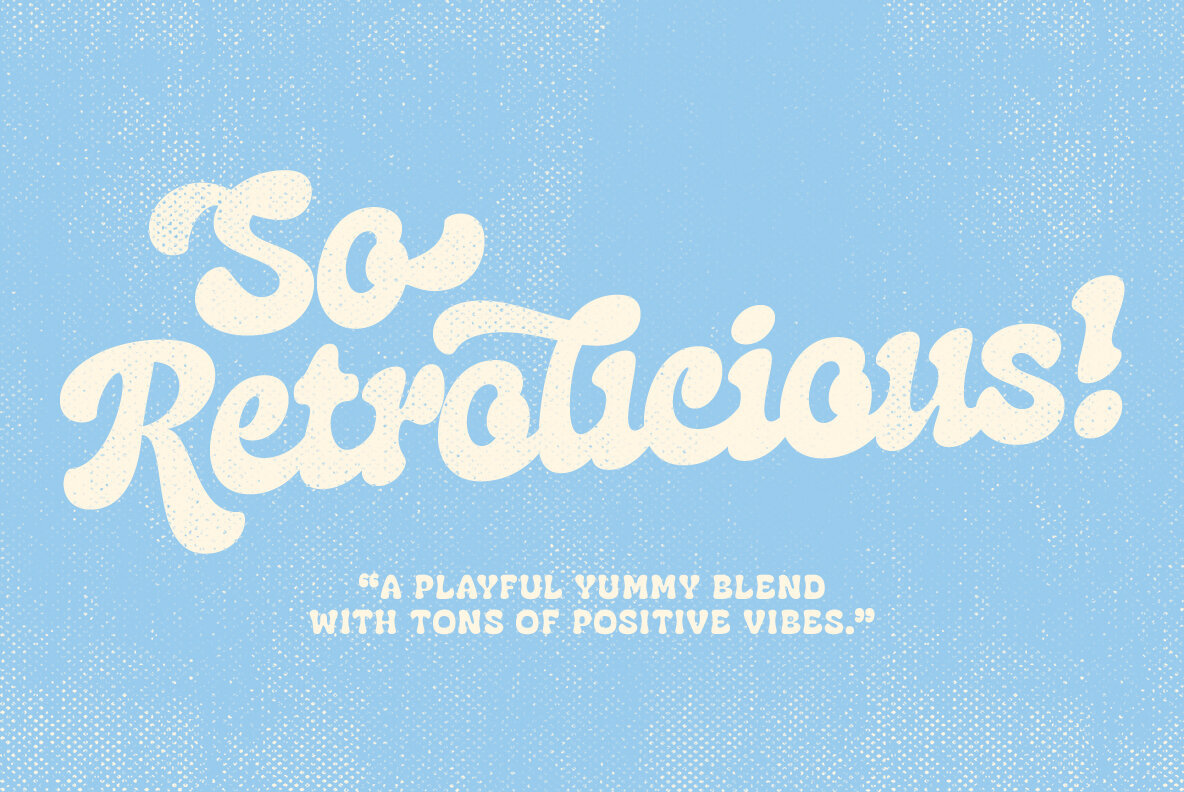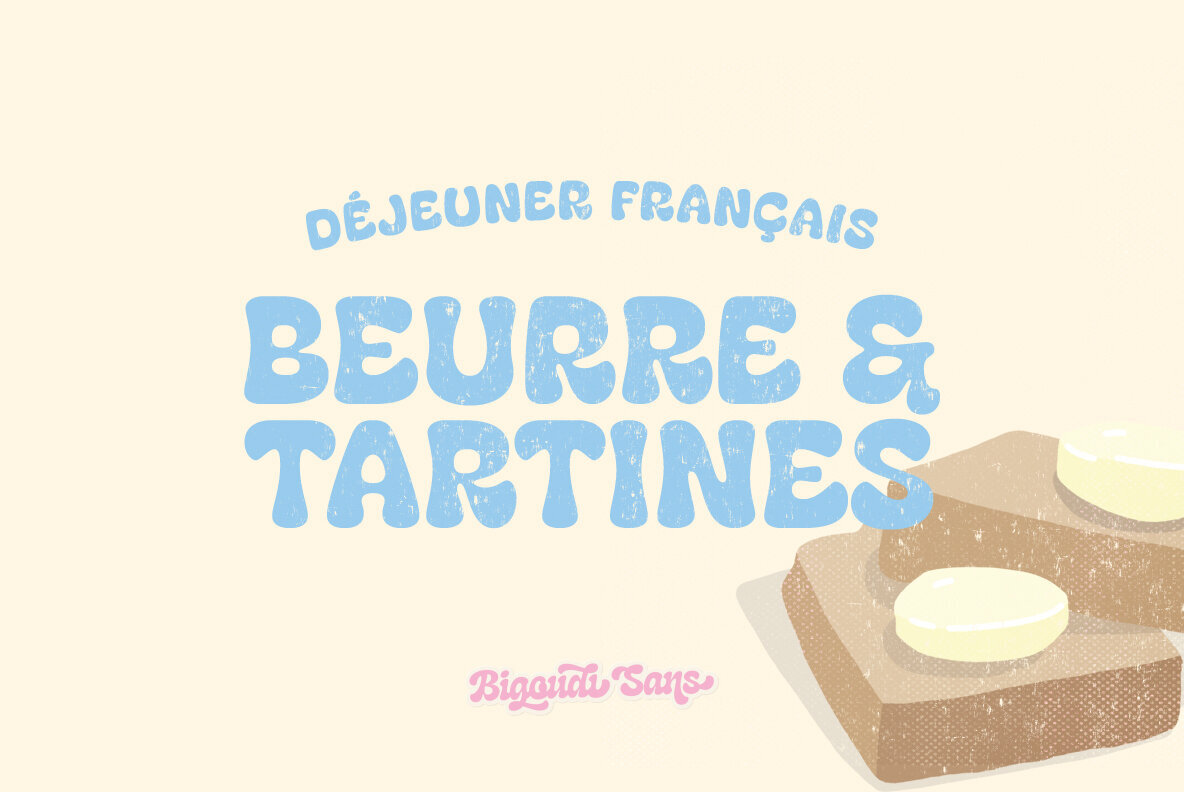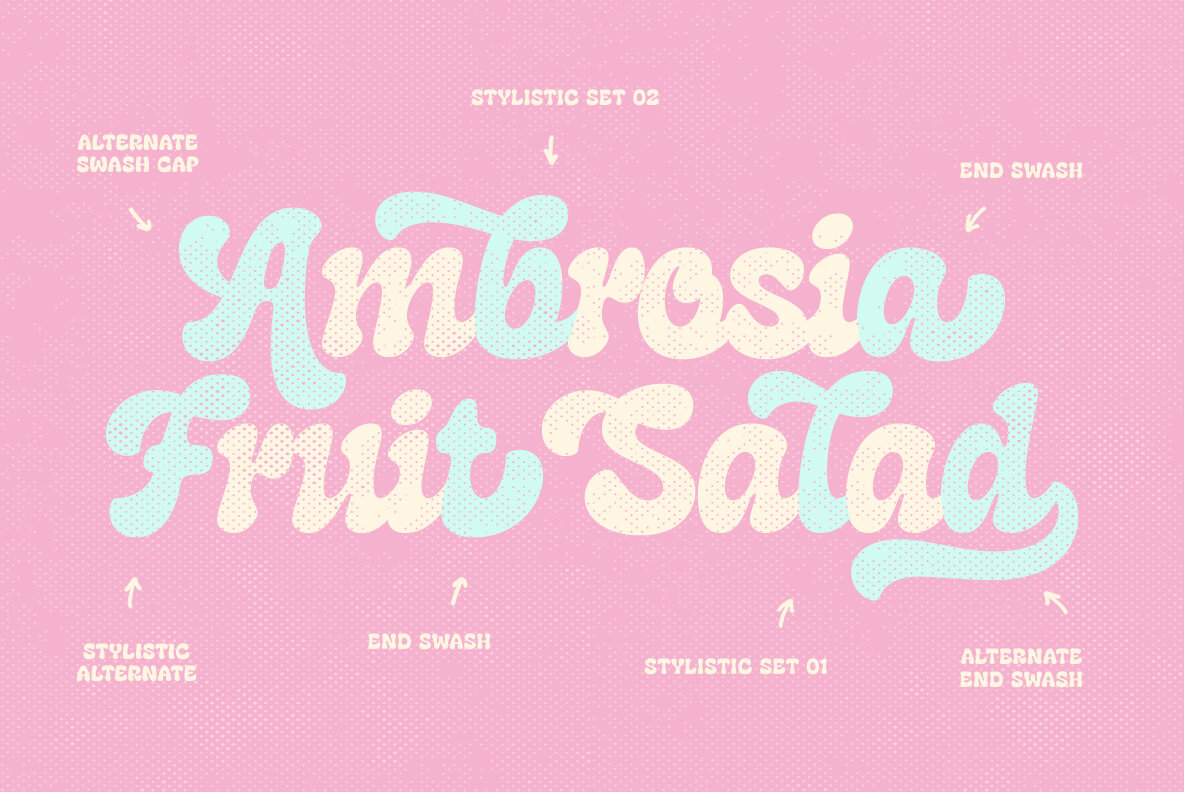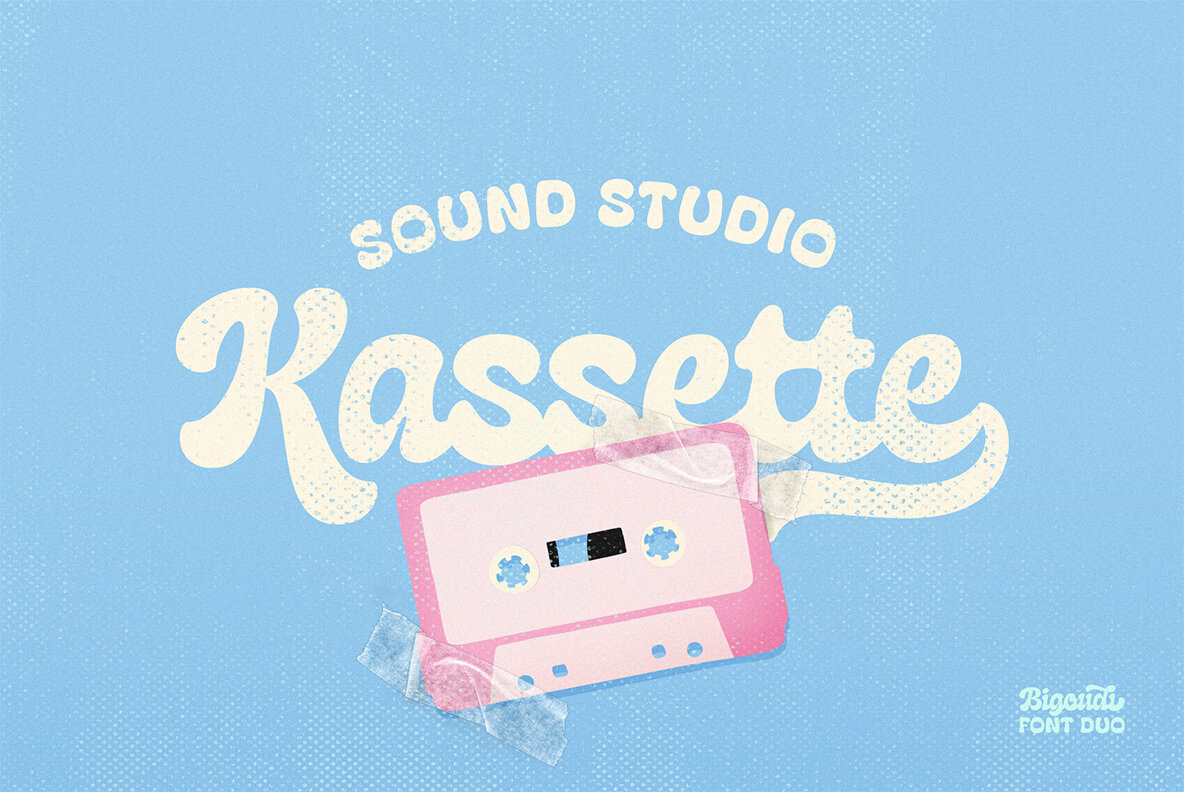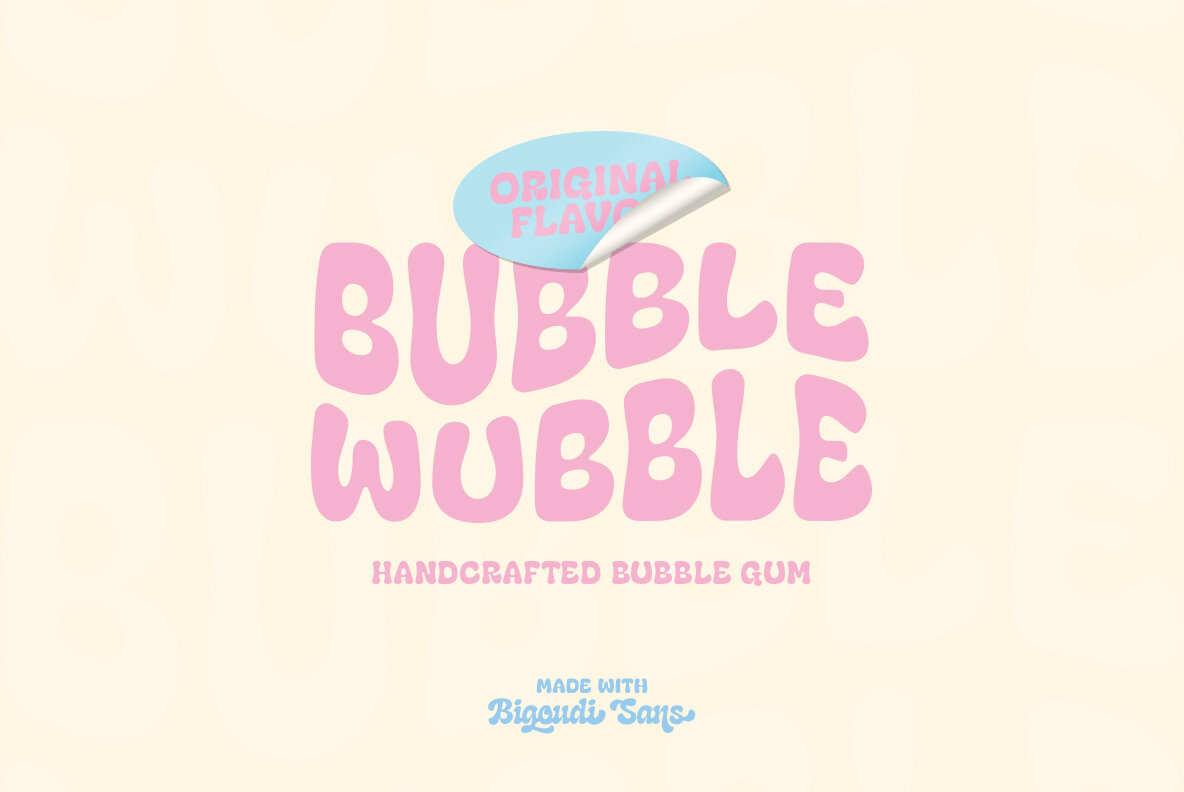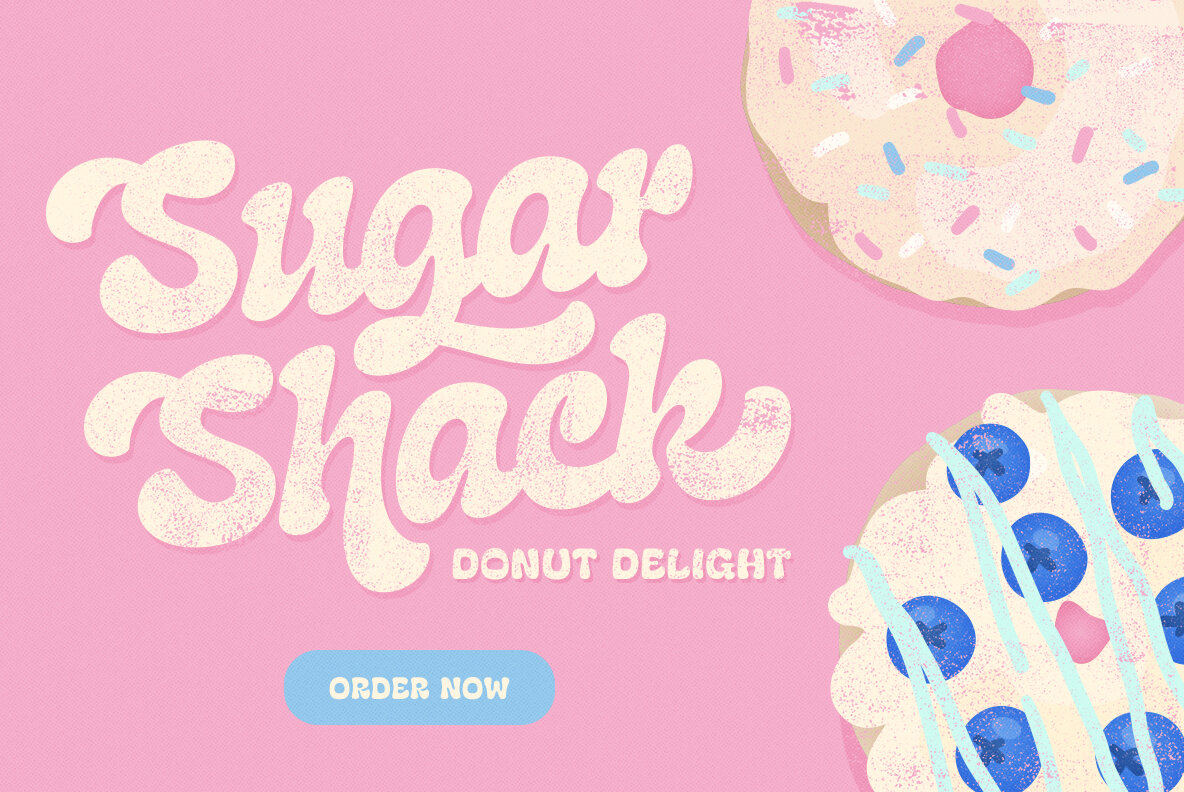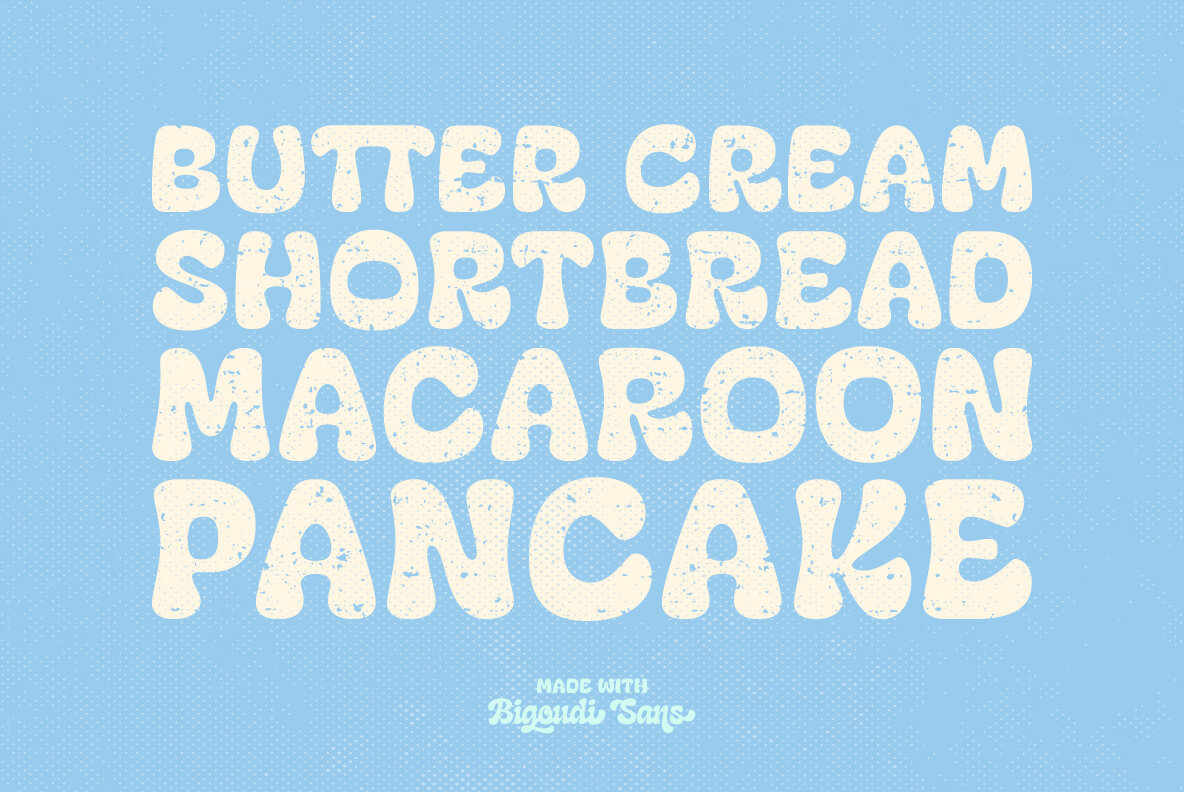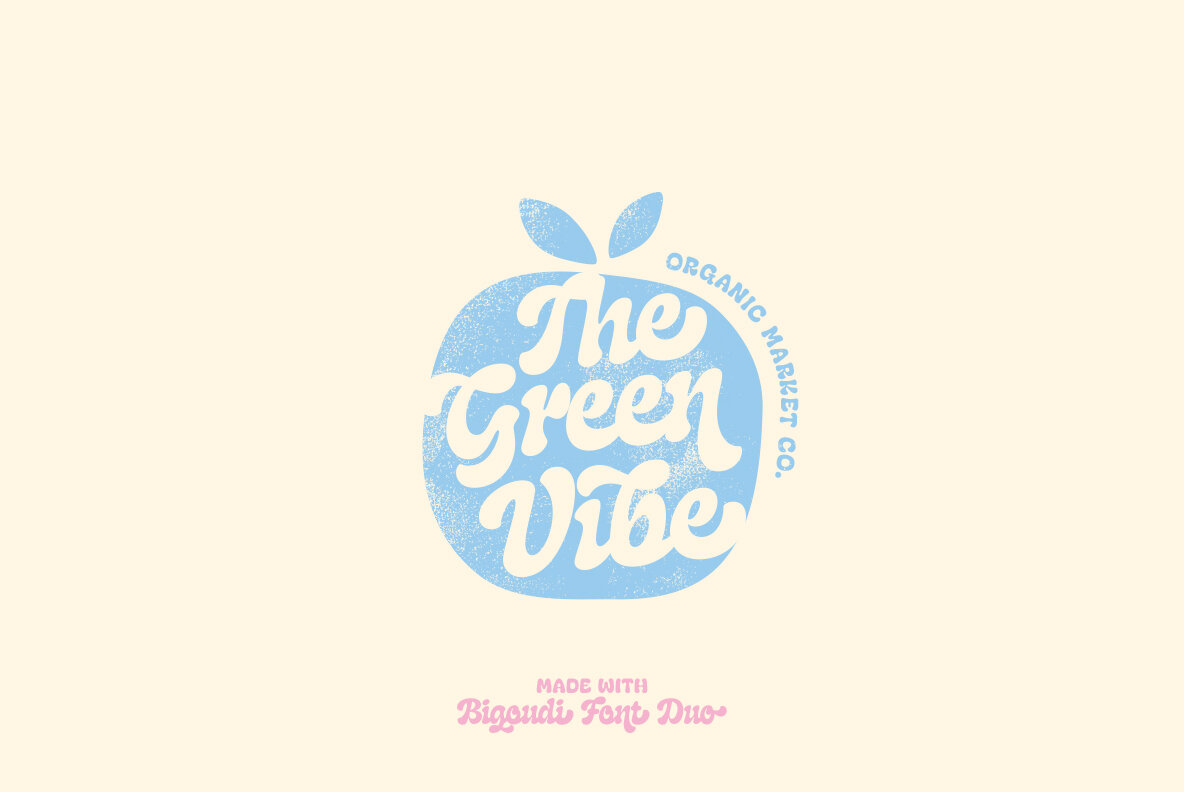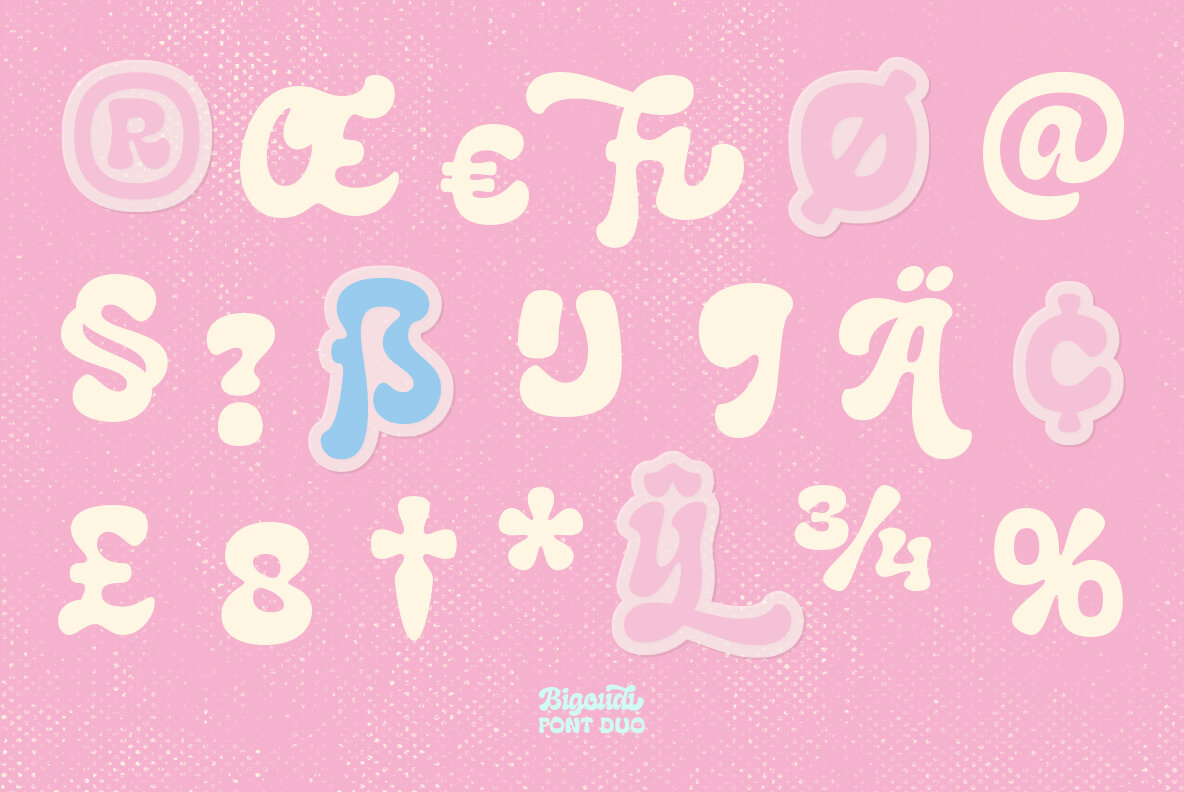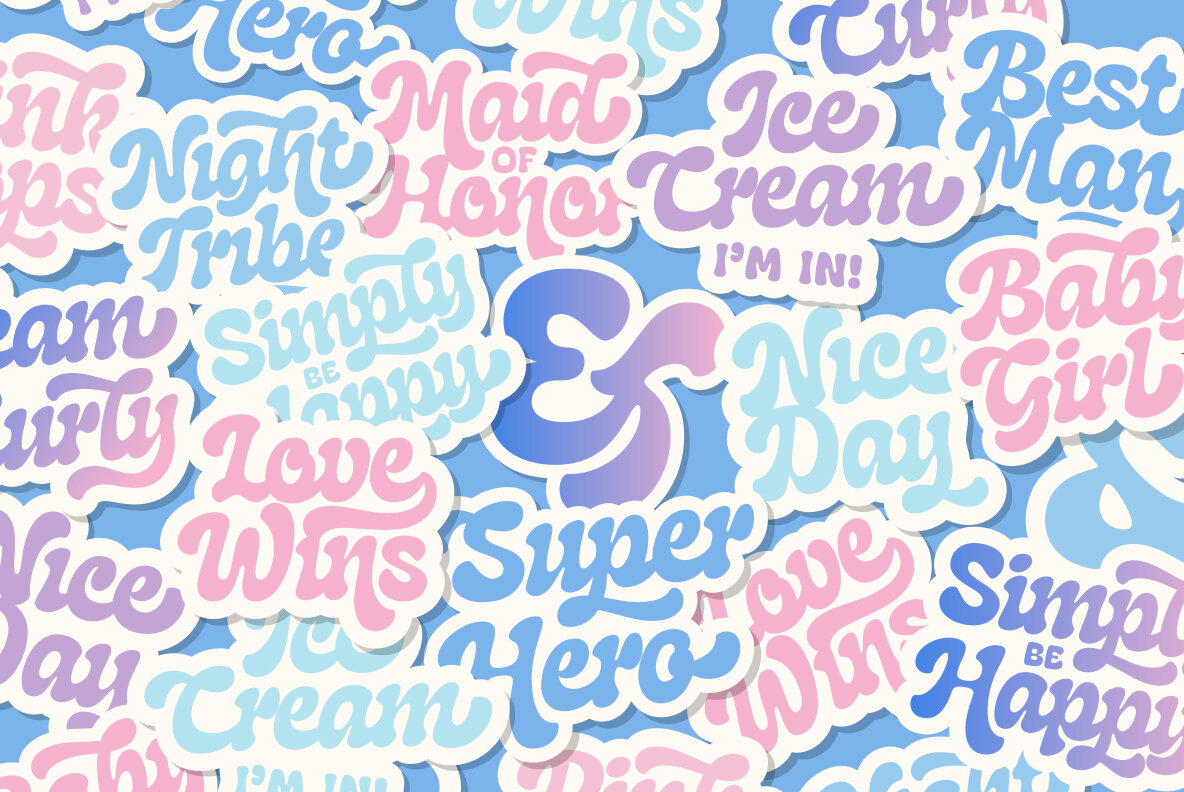
Bigoudi Font
Bigoudi Sans
Bigoudi Script
Bigoudi is a soft and creamy vintage typeface. The font duo is inspired by handcrafted bakery, girly haircare and retro ads. It is merging 70s lettering style with a 50s inspired mood board using a gentle pastel color palette that gives that cute cupcake look. All these together create a playful yummy blend, loaded with tons of positive vibes. Initially intended for logo design, the script font has a smooth and compact style with warm letterforms, rounded ink-traps, that would give any text a flowing motion with that retro kind of feeling. Bigoudi Script features a numerous of stylistic sets, contextual alternates, ligatures and swashes letters that make it so easy to create a typographic lettering style with minimal effort. It is paired with a cute rounded little all caps sans serif which compliment the script as the perfect subline or can even steal the show as the main font. Especially appropriated for display uses, the Bigoudi Font Duo will give that friendly warm welcome feeling to your branding that people would love. With 680+ glyphs in total, Bigoudi Script comes with a complete set of letters, numbers, punctuation, symbols and a multilingual support which includes diacritics for every stylistic alternate. Bigoudi Sans counts 267 glyphs in total and cover the same set of basic letters, numbers, punctuation, symbols and language support than the script font. Use it for a various range of projects from logo to posters, t-shirt design, stickers and pins, instagram stories, retro branding, web design and more. - - - - - - - - - - - - The lowercase end swashes are available by activating the contextual alternate feature AND the swash feature on Adobe programs. You can then use the glyphs panel to select your end swash. - - - - - - - - - - - - The font is not PUA encoded due to conflicts with the contextual alternates. This means that you won't be able to access the swashes nor any of the stylistics glyphs within a software that isn't OpenType capable such as Canva. - - - - - - - - - - - - Bigoudi Font Duo supports multiligual characters for Afar, Afrikaans, Aragonese, Asu, Bemba, Bena, Catalan, Cebuano, Chiga, Corsican, Welsh, Danish, Taita, German, English, Spanish, Estonian, Basque, Finnish, Filipino, French, Friulian, Western Frisian, Irish, Scottish Gaelic, Galician, Swiss German, Gusii, Manx, Interlingua, Indonesian, Ido, Italian, Lojban, Machame, Jju, Makonde, Kabuverdianu, Kalaallisut, Kalenjin, Shambala, Cornish, Latin, Luxembourgish, Ligurian, Luo, Luyia, Morisyen, Malagasy, Makhuwa-Meetto, Malay, Norwegian Bokmål, North Ndebele, Low German, Dutch, Norwegian Nynorsk, Norwegian, South Ndebele, Northern Sotho, Nyanja, Nyankole, Occitan, Oromo, Portuguese, Romansh, Rundi, Rombo, Kinyarwanda, Rwa, Samburu, Sangu, Sardinian, Sena, Sango, Sidamo, Southern Sami, Shona, Somali, Albanian, Swati, Saho, Southern Sotho, Sundanese, Swedish, Swahili, Teso, Tswana, Taroko, Tsonga, Volapük, Vunjo, Walloon, Warlpiri, Xhosa, Soga, Zulu
Opentype Features